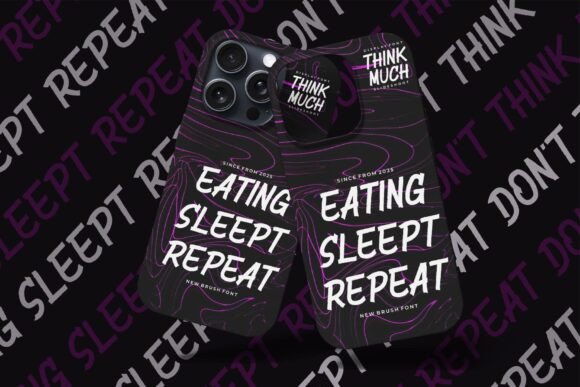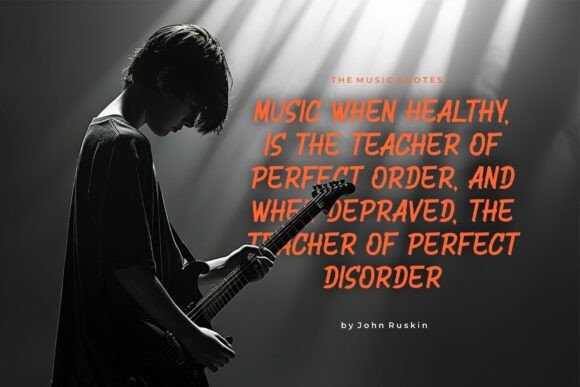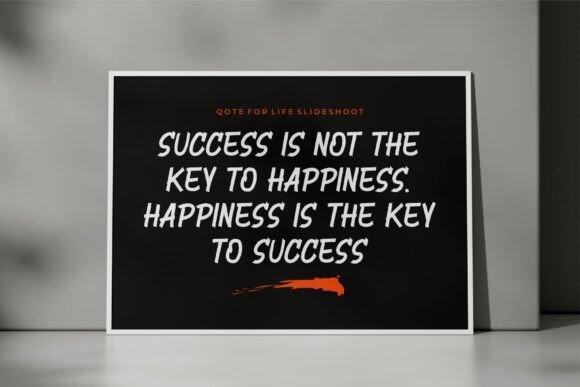
Introduction to Singen Crash Font
As a designer, you’ve probably had that moment when a project just needs a spark to ignite its creativity. Maybe you were working on a music festival poster, a sports team’s branding, or even a gritty urban design, and nothing seemed to be working. Then, like a breath of fresh air, you stumbled upon the Singen Crash Font – a game-changing addition to your design arsenal.
This raw, energetic brush font is more than just a style; it’s a statement. With its high-quality, hand-painted look, it’s perfect for designers seeking a unique and edgy aesthetic. And the best part? The Singen Crash Font is available for free download, making it an invaluable resource for any creative project.
Whether you’re a seasoned designer or just starting out, the Singen Crash Font is an essential design resource that will elevate your work to the next level. So, get ready to unleash your creativity and make a bold statement with this incredible font.
Singen Crash Font
Honest Review: Singen Crash Font
I recently came across the Singen Crash Font, and I must say, it’s an intriguing addition to any creative project. The high quality of this font is evident, making it a valuable design resource.
- ✨ The transparent background makes it easy to integrate into various design elements.
- ✨ The font’s unique style adds a touch of sophistication to any design project.
- ⚠️ The font may not be suitable for all types of projects, as its unique style may not appeal to every audience.
- ⚠️ Some users may find the font’s transparency feature to be a bit tricky to work with.
Overall, the Singen Crash Font is a solid design resource that can elevate a creative project. Its high quality and unique style make it a great addition to any designer’s toolkit. While it may have some limitations, it’s definitely worth checking out.
For the best results, use the Singen Crash Font on a transparent background to create a clean and modern design. Experiment with different font sizes and colors to find the perfect combination for your creative project.
The Singen Crash Font is ideal for use in various design projects, including logos, posters, and social media graphics. Its unique design and high-quality rendering make it a popular choice among designers looking for a versatile and creative font.